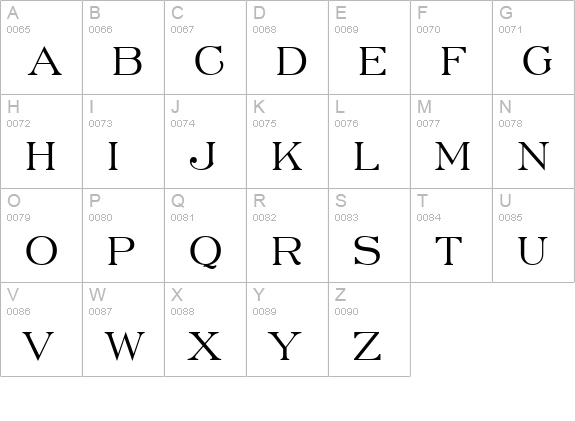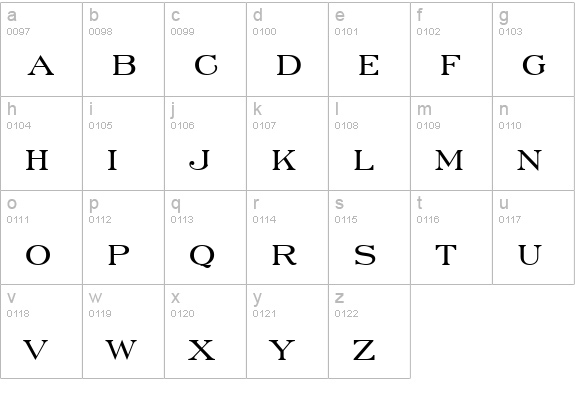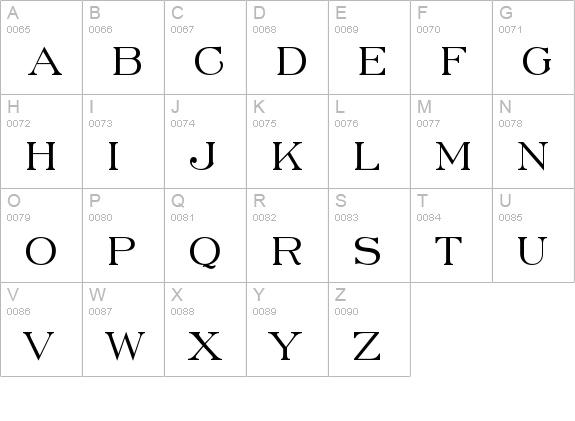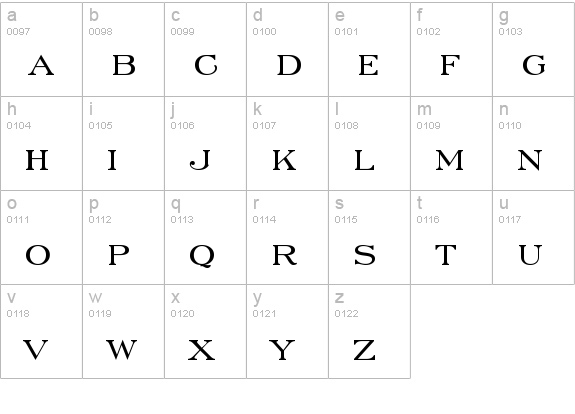
Engravers' Roman BT font is a timeless and elegant typeface that exudes sophistication and class. Its clean lines and classic serifs make it perfect for a wide range of design projects, from invitations to advertisements to branding materials. The sharp, precise letterforms of Engravers' Roman BT lend a sense of professionalism and refinement to any text. What's even better is that Engravers' Roman BT font is available for free download at FontsMarket.com. This means that you can easily incorporate this beautiful typeface into your designs without breaking the bank. Don't miss out on the opportunity to enhance your projects with the timeless charm of Engravers' Roman BT font - download it for free today!